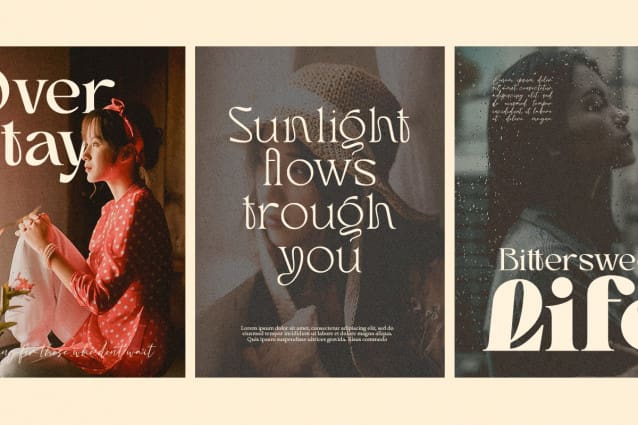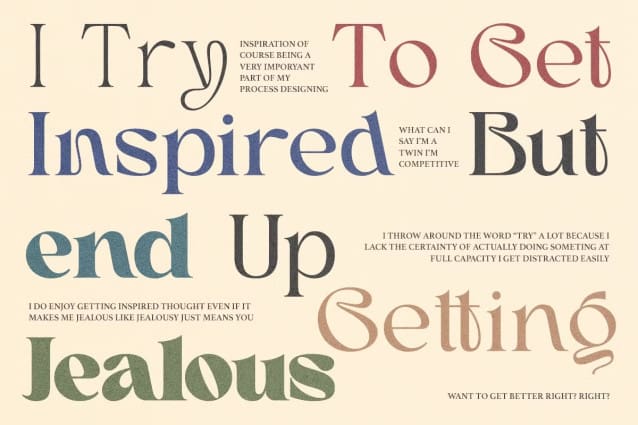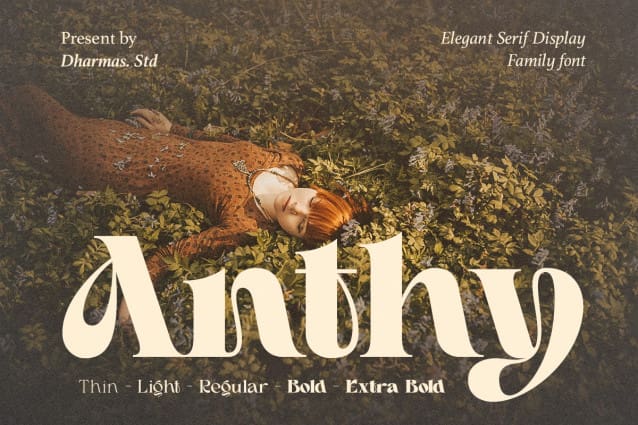
Anthy Font
Anthy Font is a modern serif family featuring tightly-spaced serifs reminiscent of the 80s and 90s, making a stylish comeback. We aimed to create the perfect font for you too!
With 5 style families (Thin to Extra Bold) and unique ligatures, Anthy suitable for short text and long words such as headlines, logos, UI design, magazine text, product descriptions, and other design needs